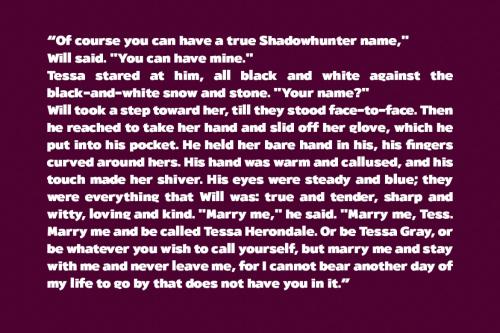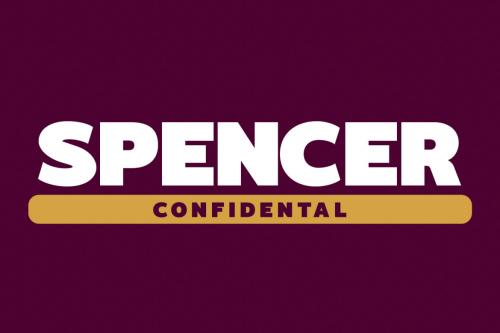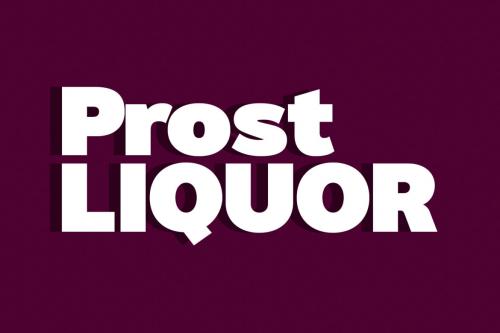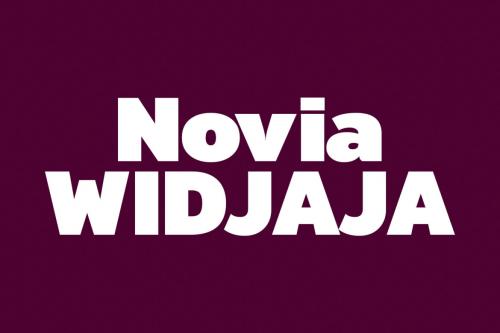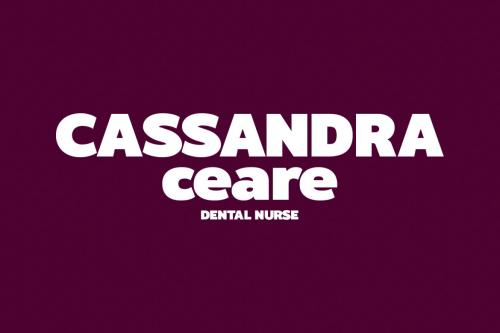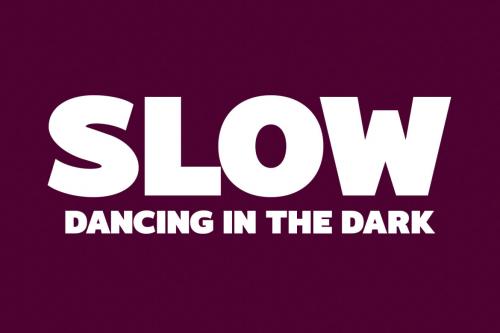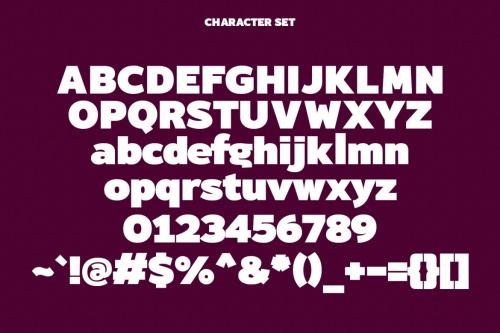
Hugein is a modern sans serif font. With bold consist stroke, fun character with a bit of ligatures. To give you an extra creative work. Hugein font support multilingual more than 100+ language. This font is good for logo design, Social media, Movie Titles, Books Titles, a short text even a long text letter and good for your secondary text font with script or serif. Make a stunning work with Hugein font.